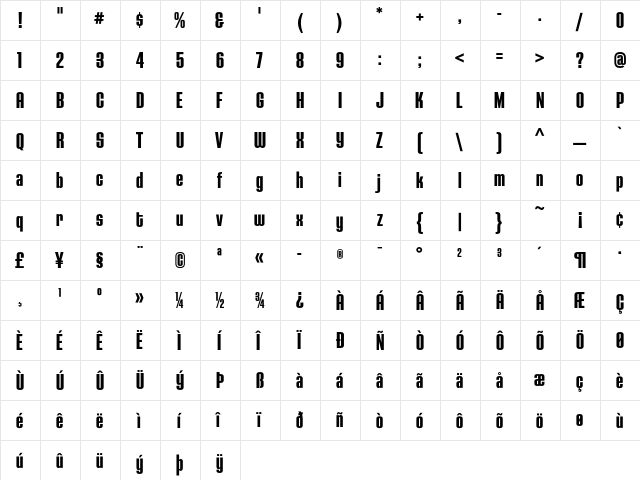
HouseGothicHG23Cond BOLD1
| Designer | Allen Mercer/Tal Leming |
Design Context for HouseGothicHG23Cond Typeface
HouseGothicHG23Cond takes a clean, functional approach — its unadorned letterforms prioritise legibility and work reliably across screen and print environments. Its bold stroke weight gives it real presence on the page. Its narrow stance lets it pack a punch even in space-constrained designs.
A strong choice for UI design, app interfaces, bold signage, and corporate brand systems.
Font Pairing: Use HouseGothicHG23Cond for headlines alongside a lighter-weight sans or serif for body copy to establish clear visual hierarchy.
Pro Tip: Try HouseGothicHG23Cond in all-caps with moderate tracking for navigation and label copy — it performs well in systematic UI contexts.